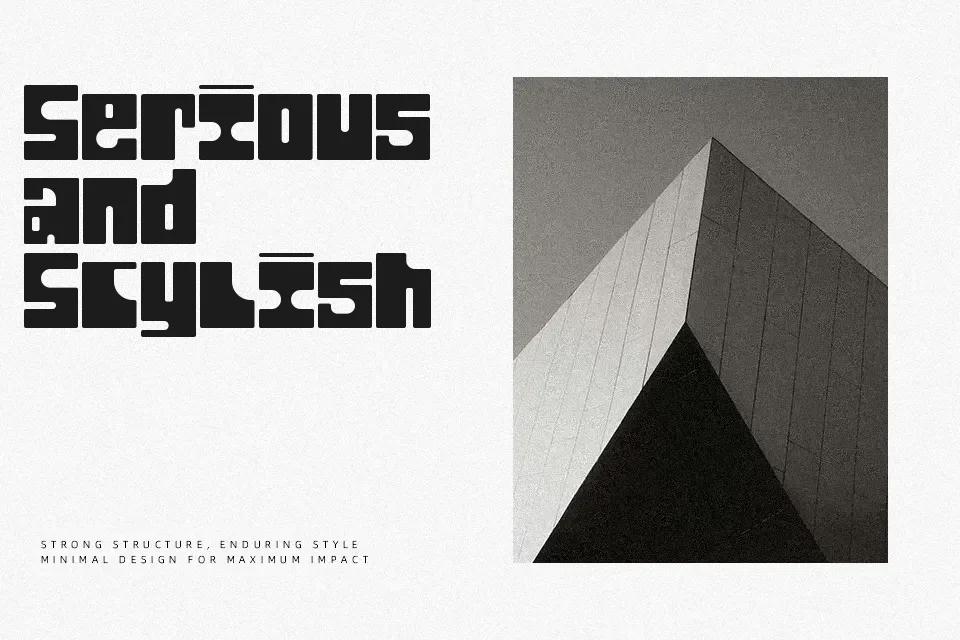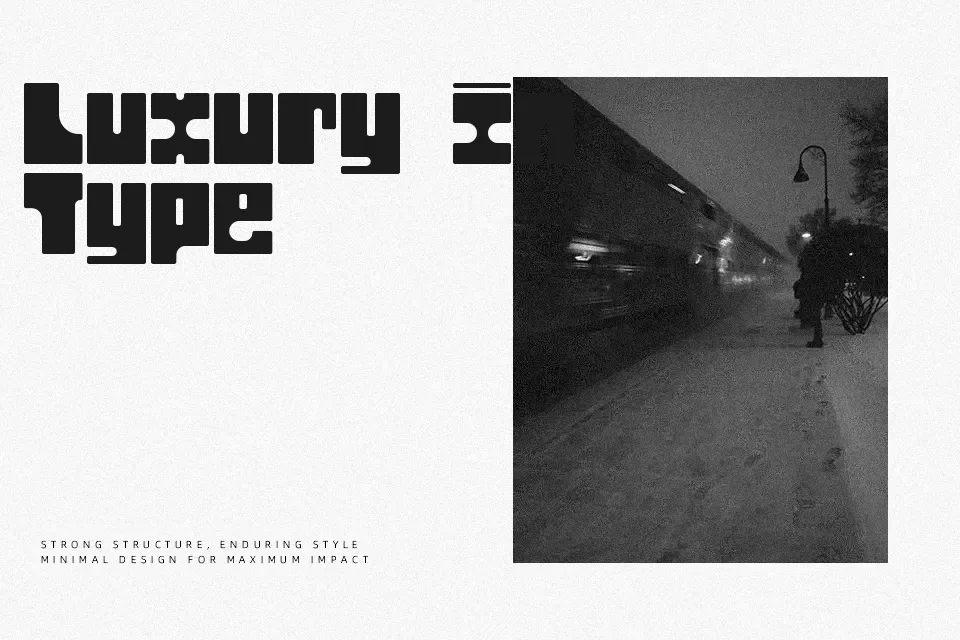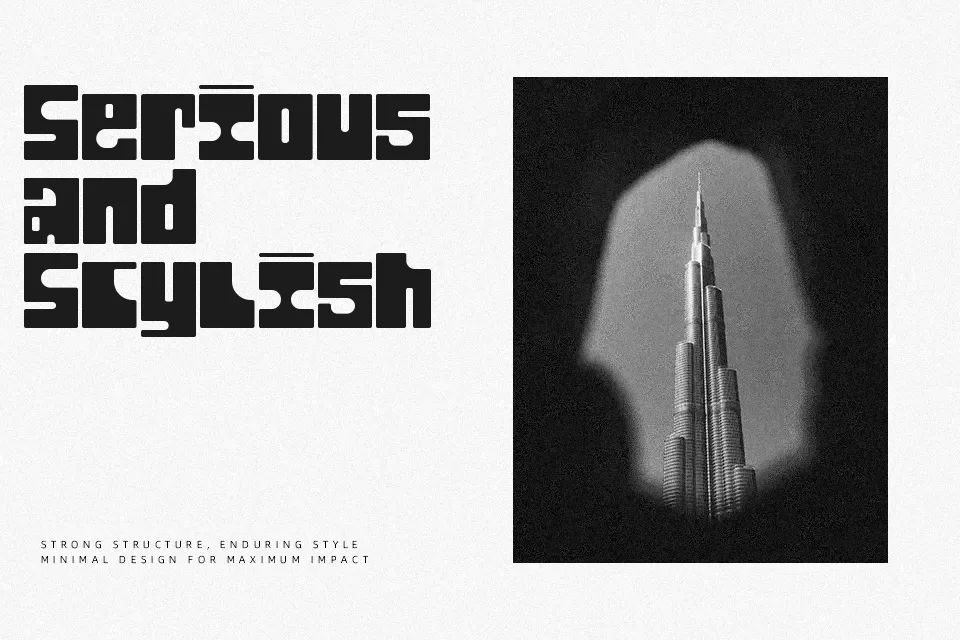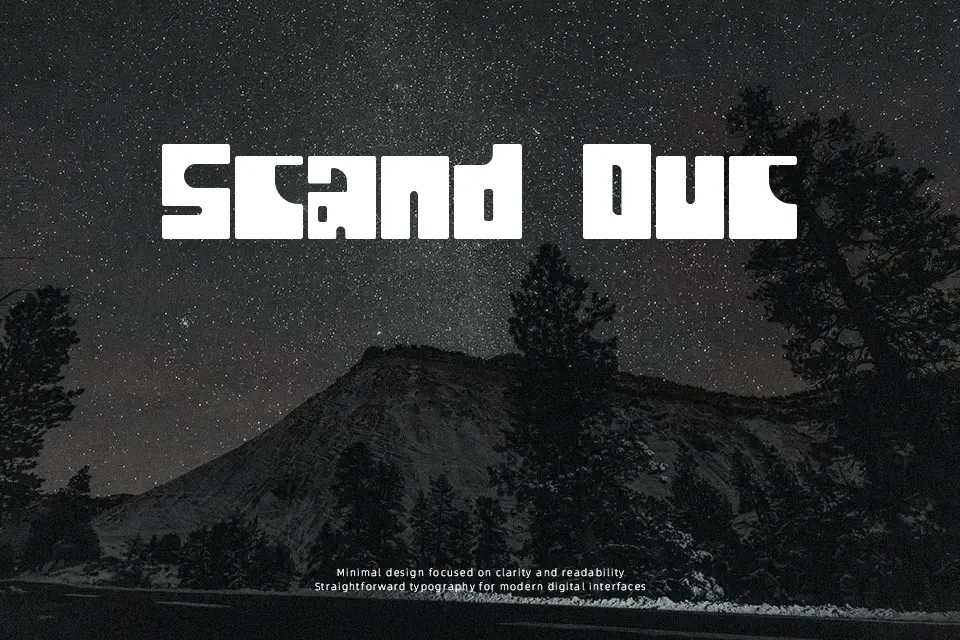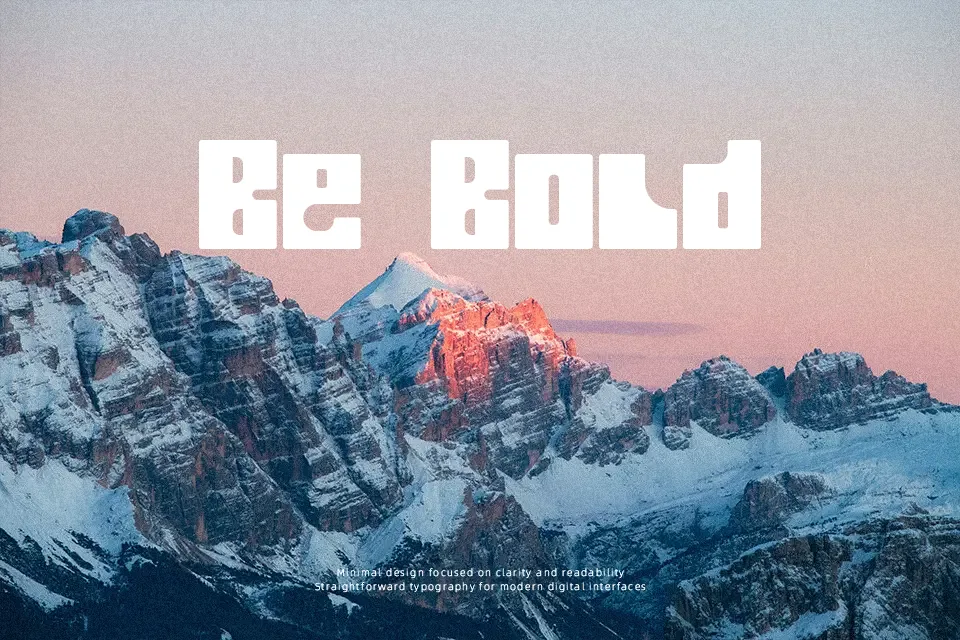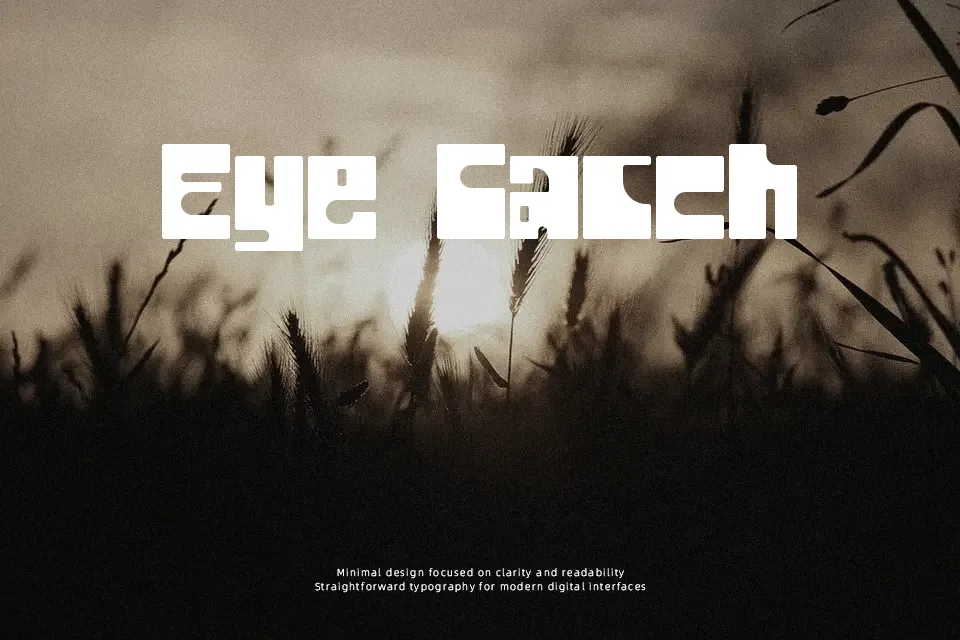
Socilo Font
Designed by Jadatype
Socilo Font features bold, geometric contours defined by softened corners and wide horizontal proportions. The consistent stroke weight and tight letter spacing produce compact word shapes with substantial graphic weight, making the typeface instantly recognizable in short display settings. While the heavy stems maximize visual impact on music posters, merchandise, and logotypes, the compressed interior counters reduce legibility in continuous reading environments. Small captions and dense editorial blocks suffer from decreased letter definition. For optimal clarity, the design performs best when set at large scale with slightly relaxed tracking across striking branding accents.
Best For: music festival posters,streetwear apparel graphics,bold merchandise logos,packaging headlines
Not Ideal For: continuous body text,dense editorial layouts,small interface captions,legal documentation
Perfect for branding, headline, and packaging, with a bold and display style.